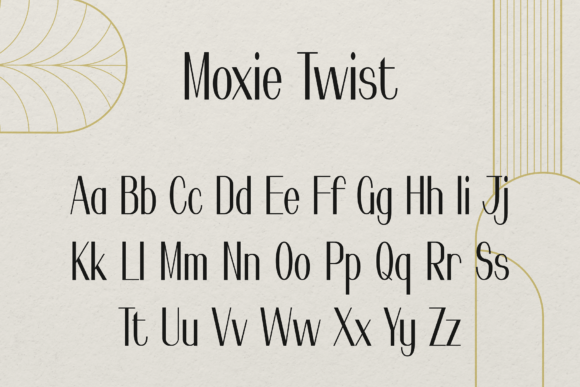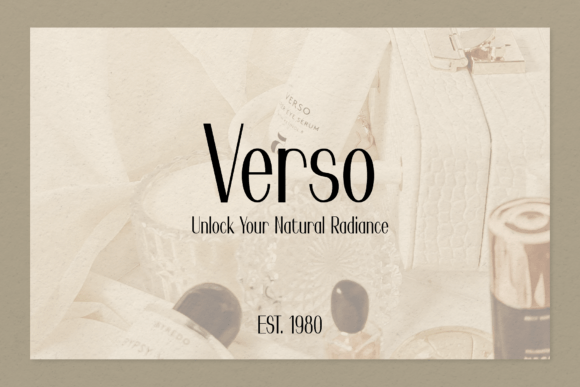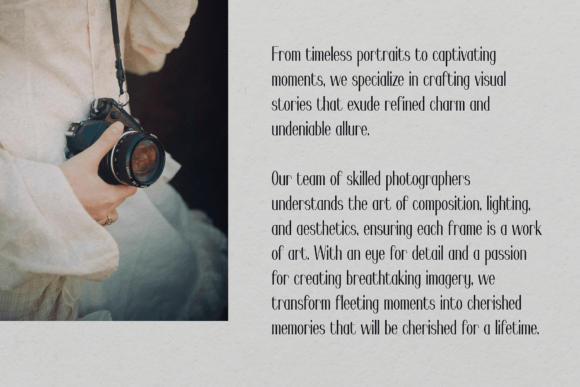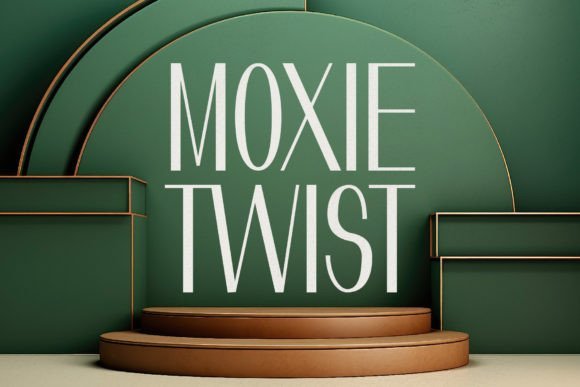
Introduction to Moxie Twist Font
Introducing Moxie Twist, a captivating revival typeface that pays homage to the timeless elegance of 1930’s design.
Inspired by the iconic typography of the era, this font seamlessly blends nostalgia with a modern twist With its unique flair and charming details, Moxie Twist breathes new life into vintage aesthetics, infusing your designs with a touch of sophistication and character.